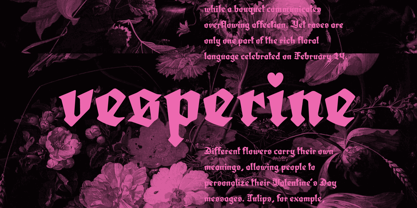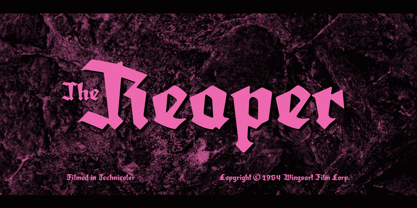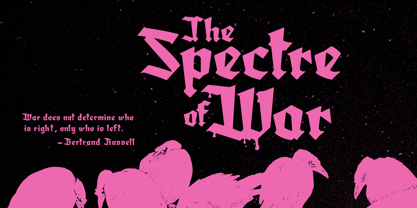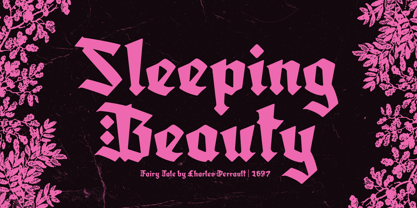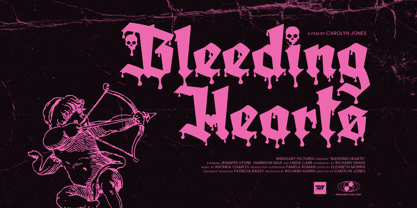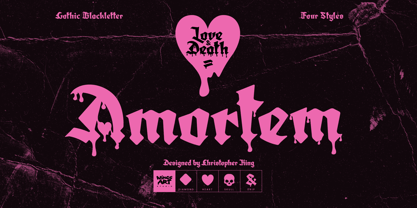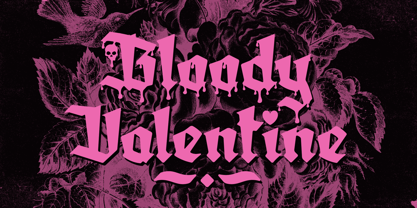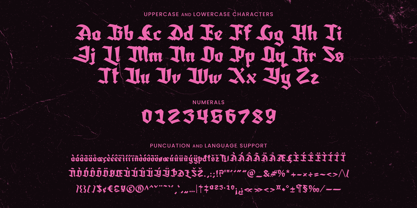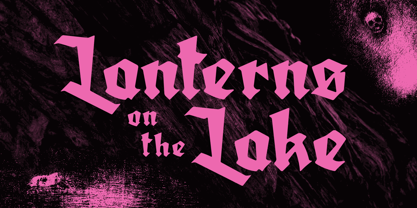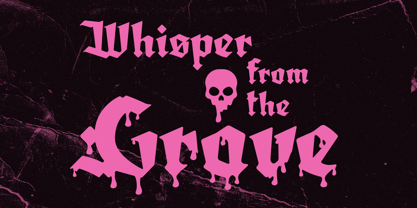
Amortem
The Amortem Font Family was designed by Christopher King and published by Wing's Art Studio. Amortem contains 8 styles and family package options. More about this family
Amortem - A Lovesick Gothic Blackletter from Valentines till Halloween. Amortem is a blackletter typeface inspired by Gothic literature, horror, and brooding dark romance. Its stylistic alternatives can evoke both devotion and dread, making it perfect for designs that traverse worlds of beauty and beast. Like a love poem from beyond the grave, Amortem speaks of a ghostly longing, or maybe cautionary tales passed through generations, ancient occult rituals, or the ever-present spectre of war. Its power lies in those who wield it and the truth that lies within. The Amortem family includes four styles in both standard and drip versions, each with the stylistic alternatives: Regular, Diamond, Heart, and Skulls. All come with uppercase and lowercase characters, along with numerals, punctuation, and language support. Valentines or Halloween, there’s a mode to suit your mood. While its points appear razor-sharp, you'll notice a softer edge on close inspection, lending this blackletter a slightly aged appearance, improving legibility at large and small sizes. Great for film titles, album covers, posters, books, and cards, whatever your poison, choose Amortem. Copyright © 2025 Christopher King | Wingsart Studio
Christopher King (aka Wingsart Studio) is a Graphic Designer specialising in hand-drawn lettering for film and television titles. From blockbuster films to indie press, Wingsart Studio fonts have appeared on screens big and small around the globe. His work has been used by companies including Disney, Marvel, Apple, Netflix and Paramount Studios.The Wingsart Studio philosophy is to embrace the imperfections inherent with real pens, pencils, paper and brush. In counter-balance to an AI driven age, these fonts remain refreshingly analogue and proud of their human touch. Before a single letter turns into a digital product, countless hours are spent researching and sketching out ideas in pursuit of those perfect lines and shapes.